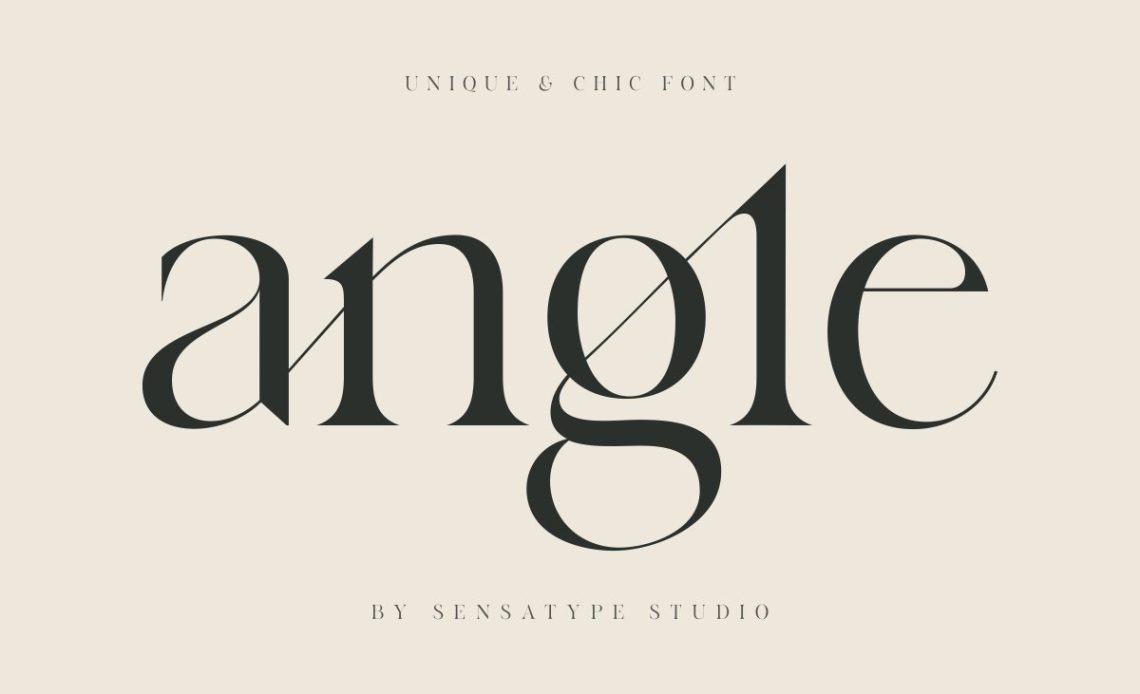
Looking for the best font for packaging? Look no further than Angle - the unique and chic font that's perfect for branding and logo design! Created by Muhammad Zamroni Hamzah, this font is part of our Unique & Classy Font Bundle, which includes 11 of our best-selling font collections for only $29 - saving you 80%!
As experienced graphic designers who have worked with many companies, we understand the importance of a unique yet elegant logo. That's why we created Angle - to provide you with a font that combines both qualities. With Angle, you'll get classy, elegant, and certainly unique logos that will make your brand stand out from the crowd.
Our latest update (v.2) includes 10+ ligatures to fulfill your needs, and Angle also features a full set of uppercase and lowercase letters, multilingual characters, numerals, and punctuation. So you'll have everything you need to create a stunning design with ease.